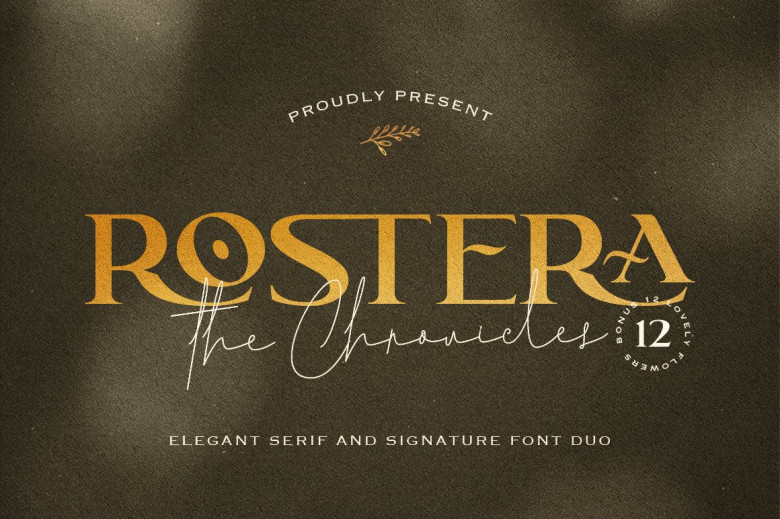
Rostera Font
Welcome to Rostera The Chronicles. When designing Rostera we envision it as an appealing character whose font can serve as the representation of their personality, someone we would want to spend an afternoon tea drinking together, someone with strong characteristics who always shares nice words while making us smile,
someone whom we would want to hug and have immense faith in them, all this comes together into Rostera – it makes for the ideal font choice when used for branding, posters or merchandisers whose work speaks in Rostera-speak – why else choose another font than Rostera.
Rostera Serif Font